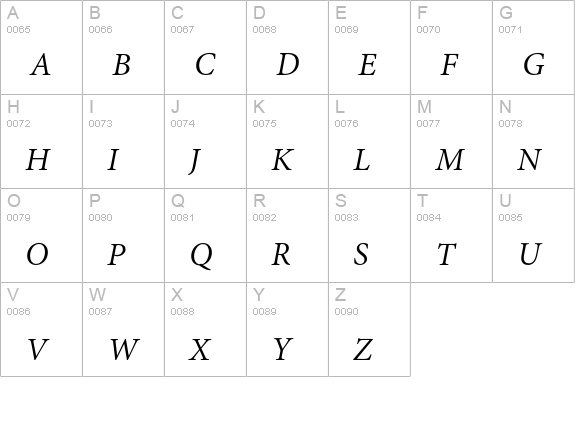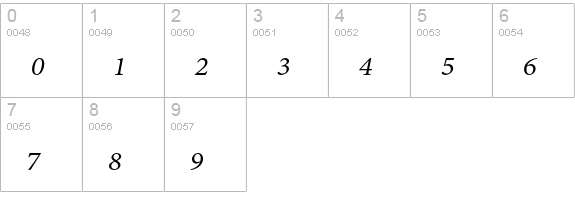
Adobe Thai Italic Font Details
Adobe Thai Italic is a distinctive, italic variant in the Adobe typeface family \xE2\x80\x94 well suited to design and typography projects.
Experience the elegance and sophistication of Adobe Thai Italic font, a versatile typeface that seamlessly blends traditional Thai script with a modern twist. The sleek and slanted design of the italic style adds a touch of flair and dynamism to any project, making it perfect for both print and digital applications. What sets Adobe Thai Italic font apart is not only its striking aesthetics but also its accessibility. This premium font is available for free download at FontsMarket.com, allowing designers and creatives to easily incorporate its unique charm into their work without any cost. Whether you're designing a poster, brochure, website, or any other creative project, Adobe Thai Italic font is sure to make a lasting impression with its graceful curves and distinctive style. Don't miss out on the opportunity to enhance your designs with the beauty of Adobe Thai Italic font. Download it for free today and take your typographic creations to the next level.